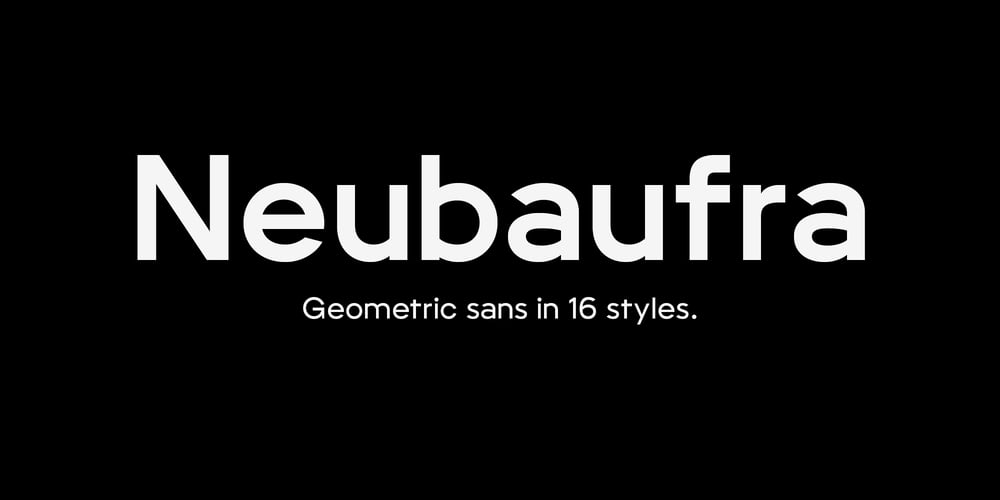
Neubaufra Font Family was designed by Mariya Lish and published by Inhouse Type. Neubaufra contains 16 styles and family package options. Neubaufra is a geometric modernist type family. Originally released in 2012 as Baufra, Neubaufra is a considerate restoration of the original work. Inspired by the early 20th century designs, Neubaufra gives special kudos to the Bauhaus influence. Complete with 8 weights + Italics, new design retained its prime modernist characteristics with the improvement to the legibility for text and web use. Extended language support includes Latin and Cyrillic.